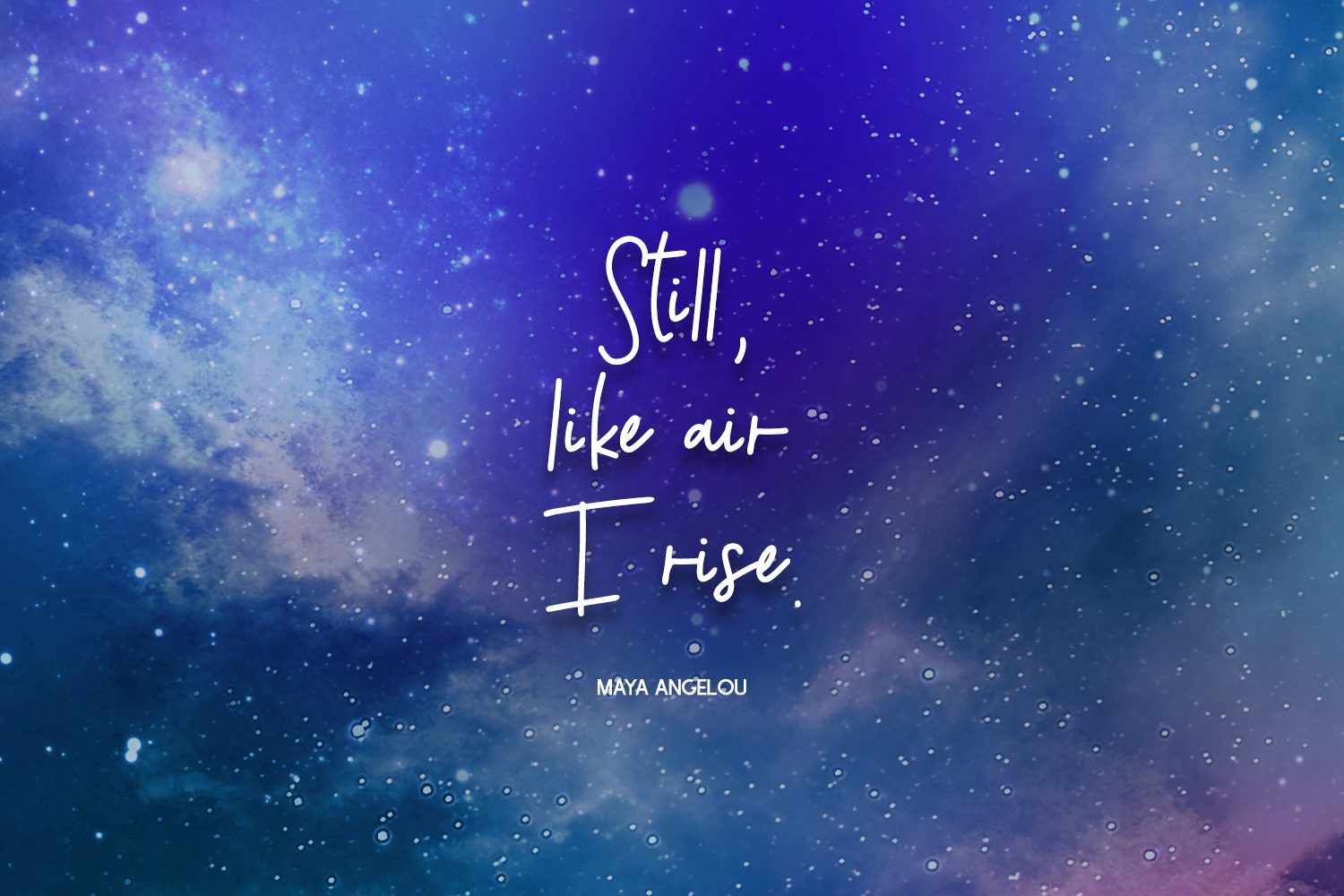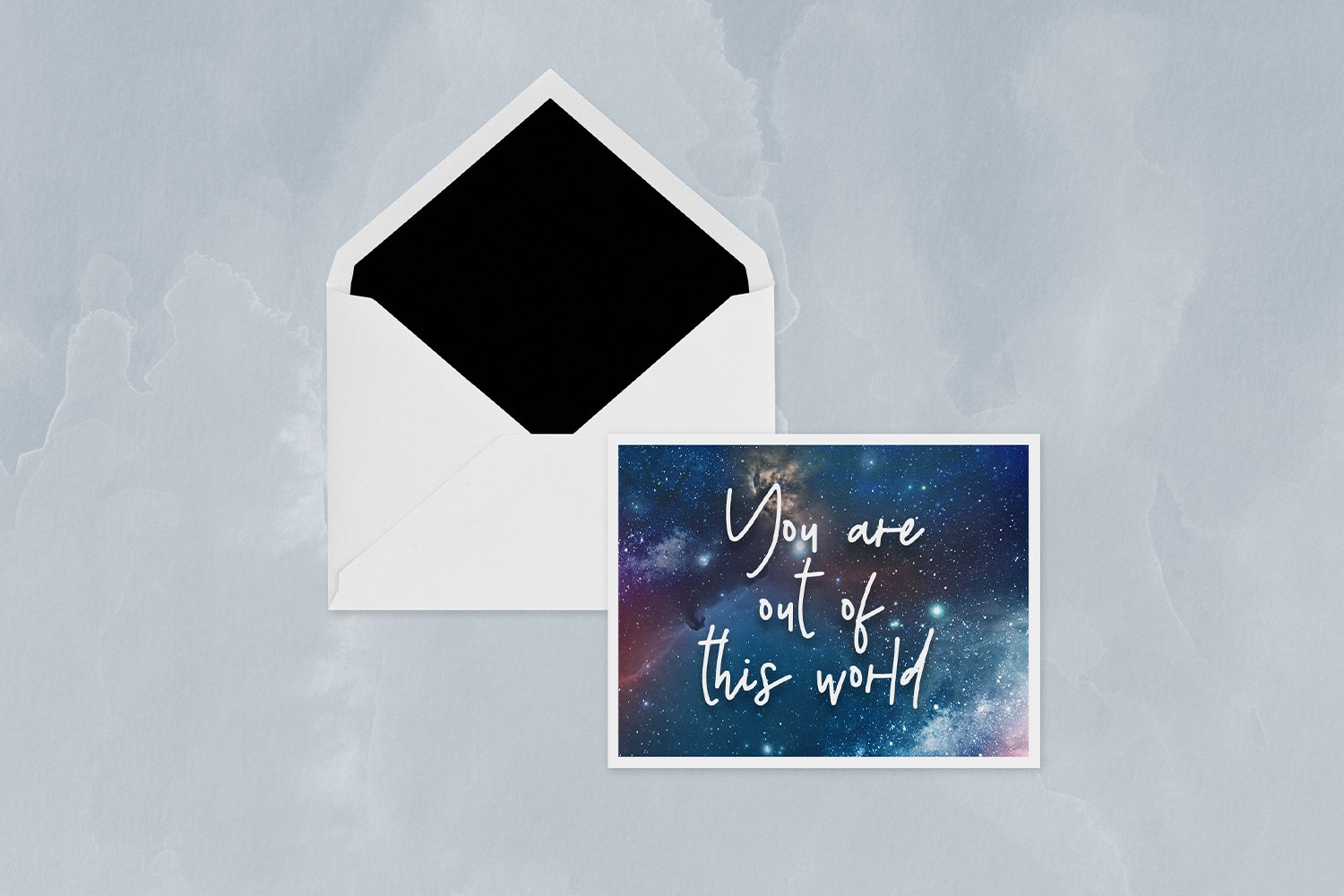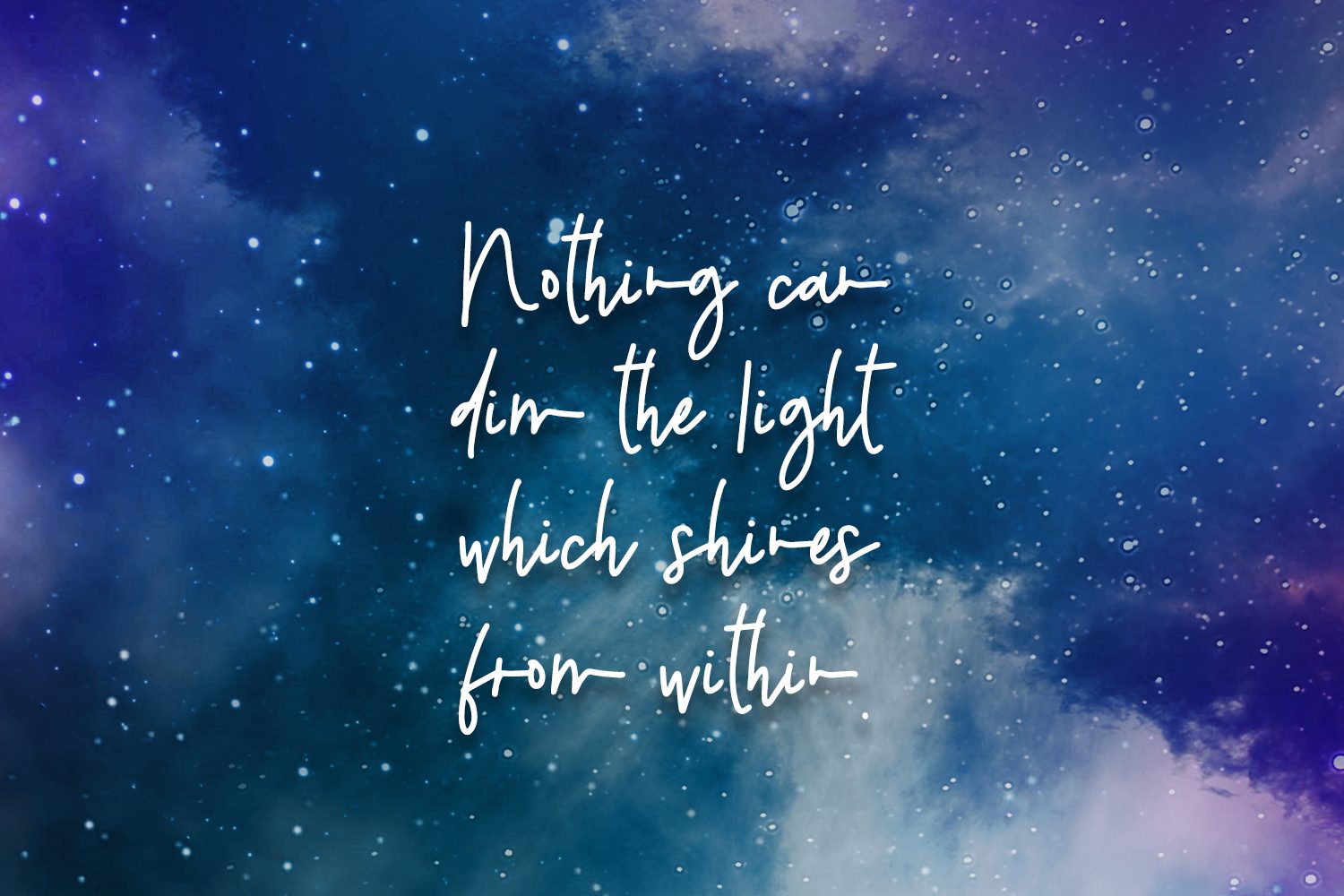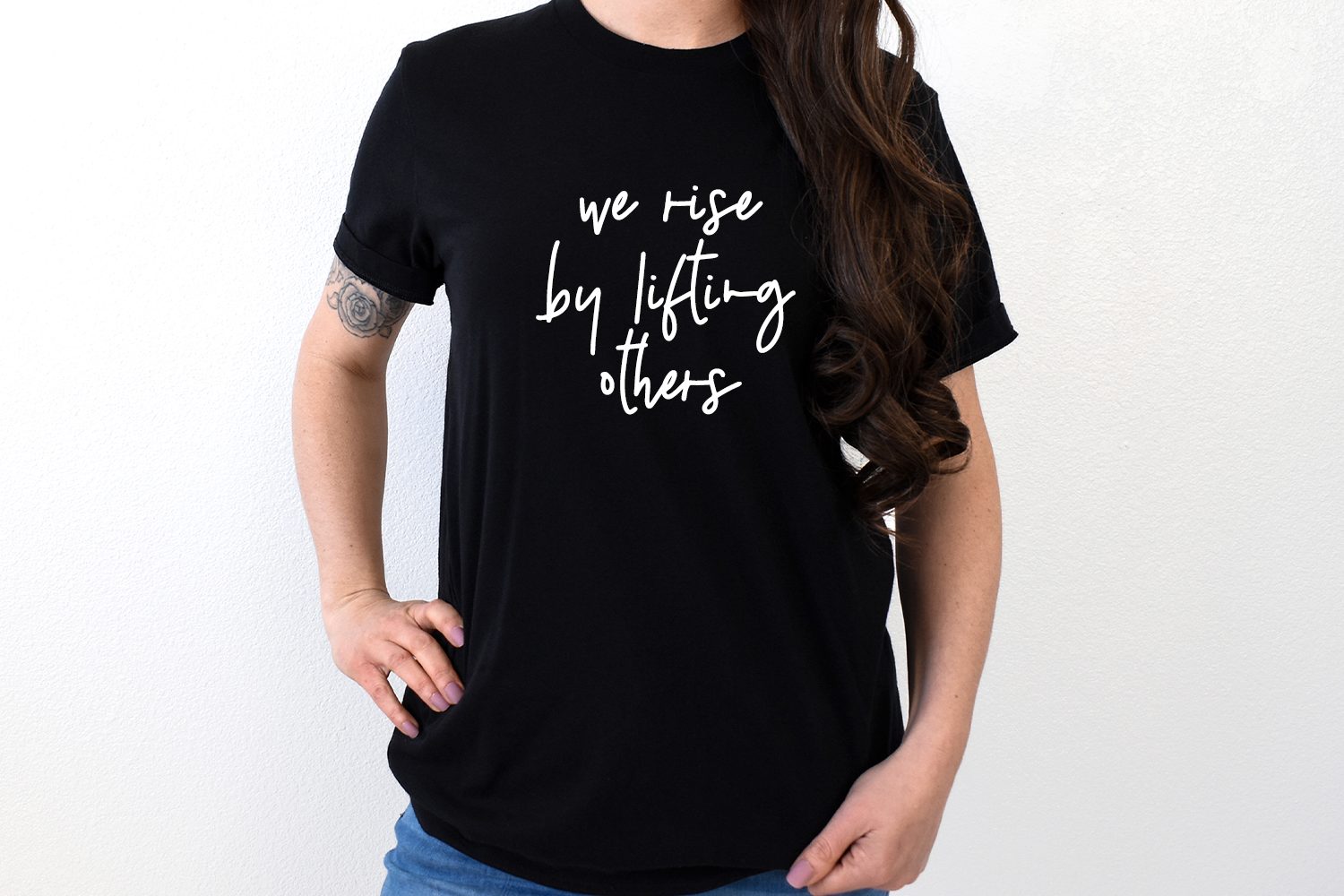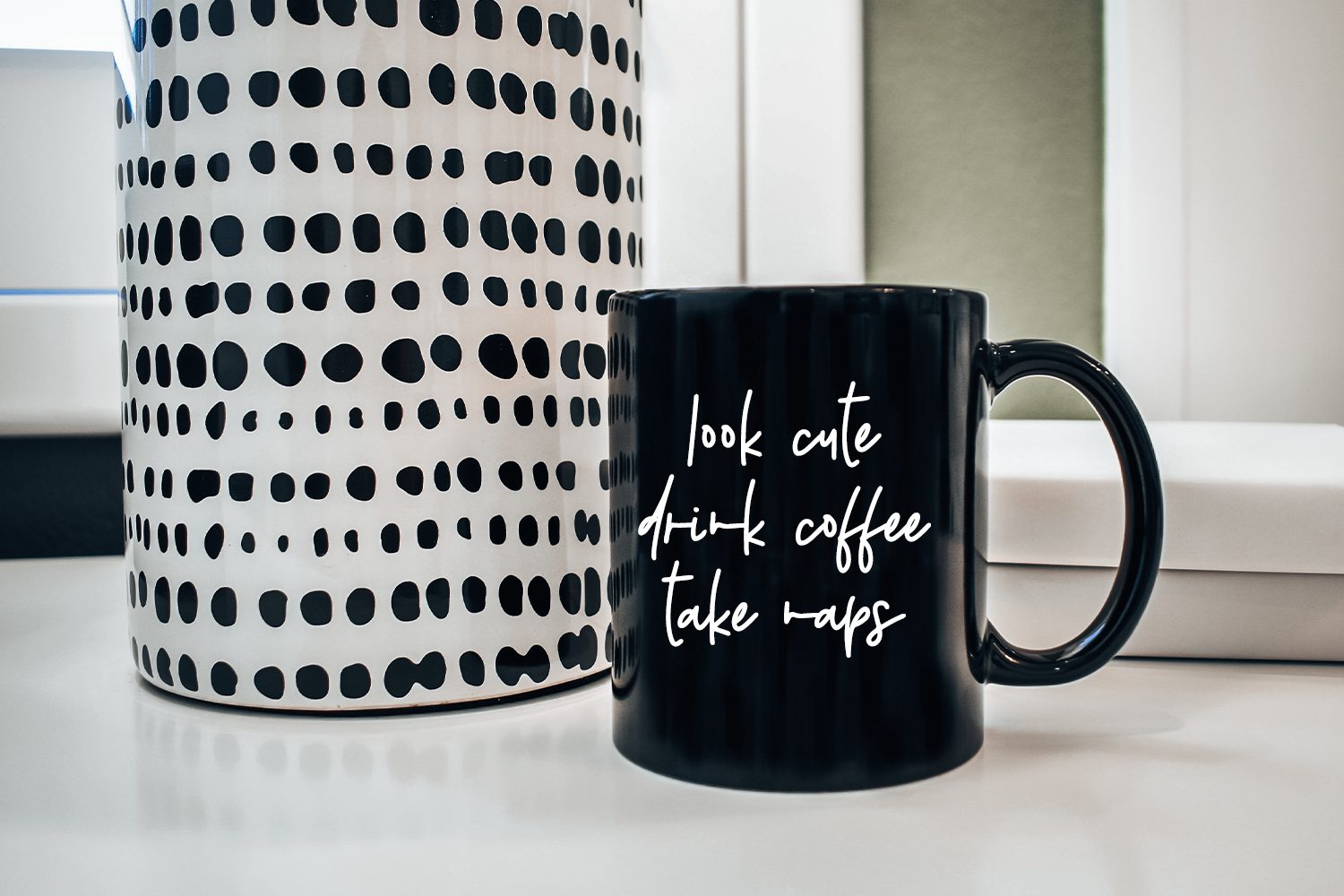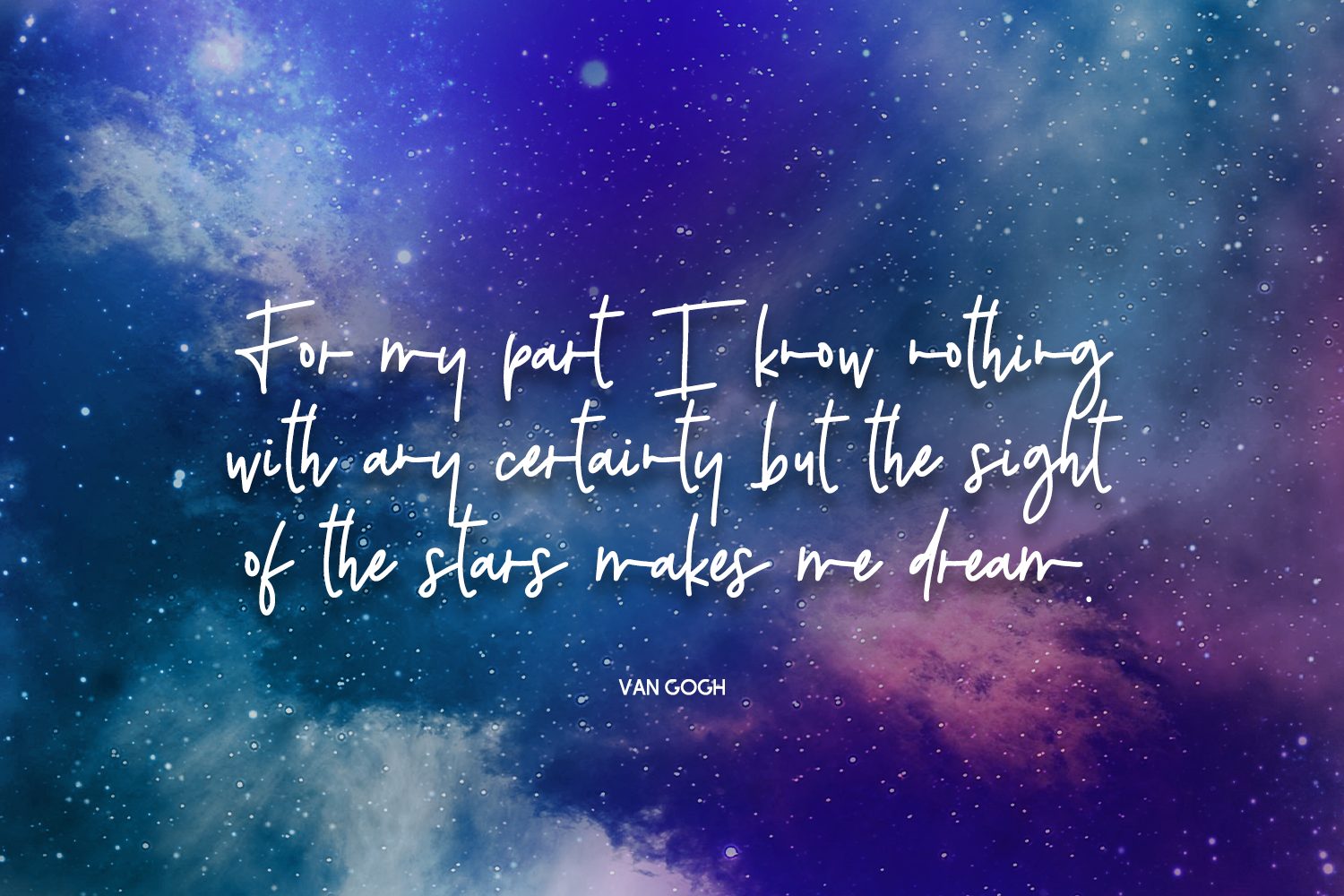
Galaxyrise Script Font
Introducing Galaxyrise, a monoline handwriting font.
Galaxyrise is best for:
– logos + branding
– website design + website accents, blog design
– clean print design, like magazines + flyers
– header elements that need handwritten touch
– quote graphics for social media